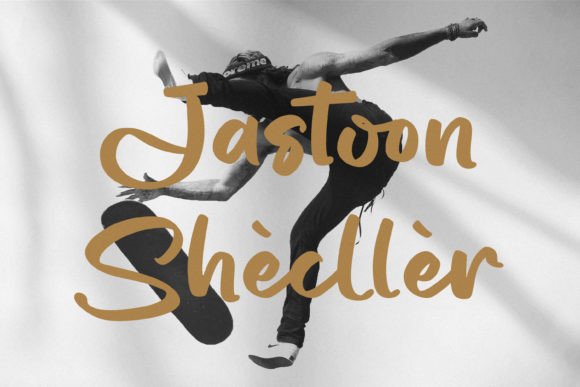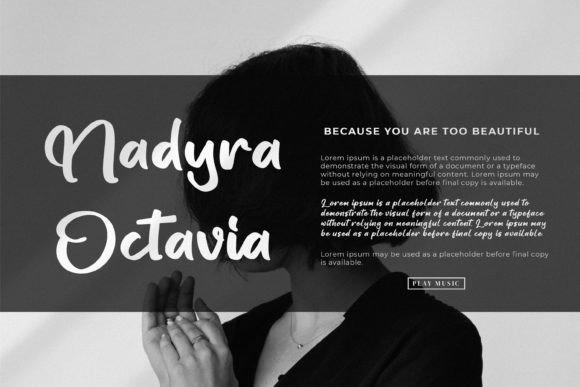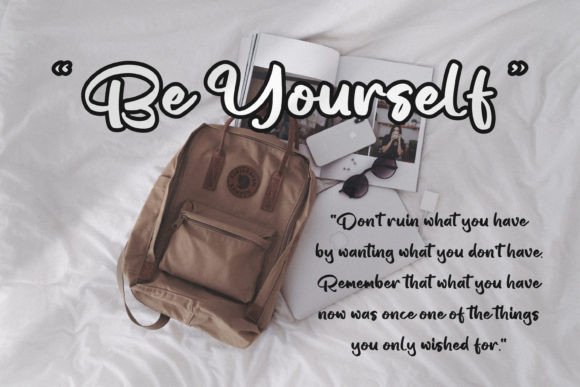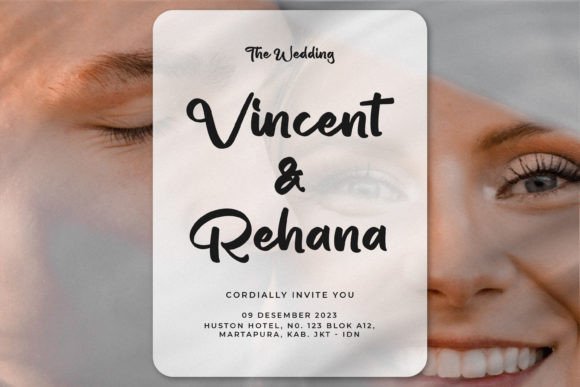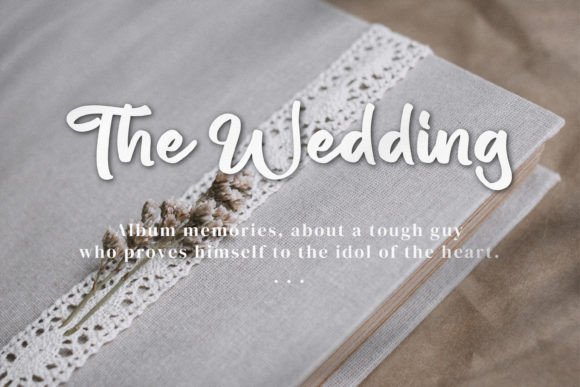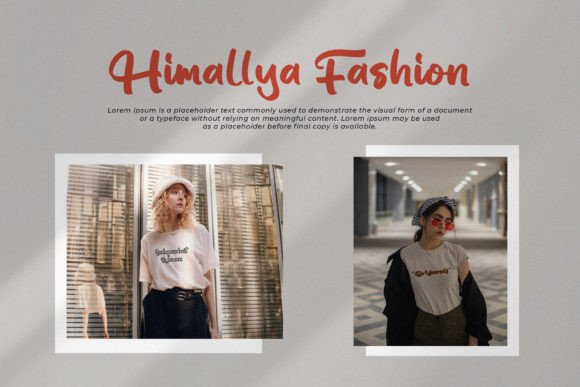
Introduction to Monella Cattresh Font
Monella Cattresh is a playful and charming handwritten font that exudes a sense of youthful energy.
Its bouncy, irregular strokes create a sense of whimsy, while its rounded edges lend a friendly and approachable feel Whether used for invitations, social media graphics, or branding materials, Monella Cattresh adds a touch of fun and personality to any project.
Key Features of Monella Cattresh Font
Why Choose Monella Cattresh Font?
Monella Cattresh Font offers exceptional quality and versatility, making it a valuable addition to your design toolkit. Whether you’re creating for personal projects or commercial use, Monella Cattresh Font delivers professional results.